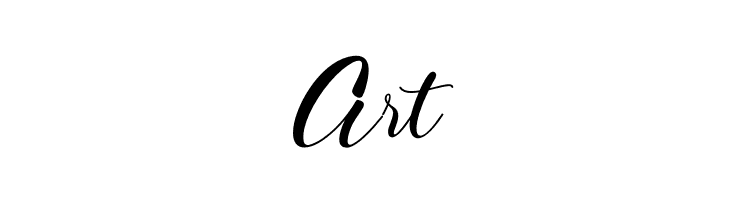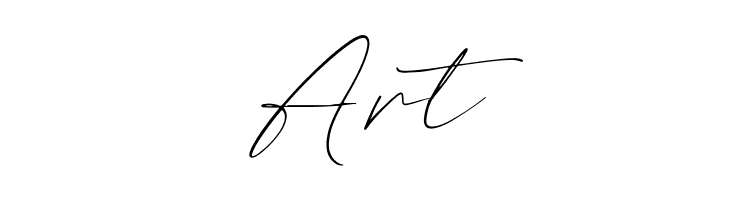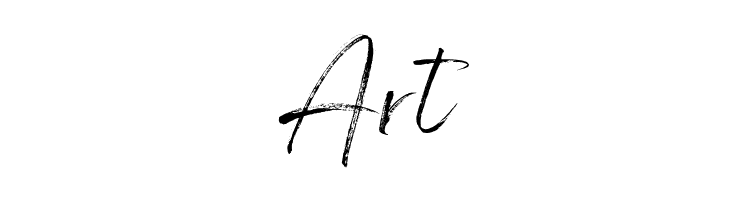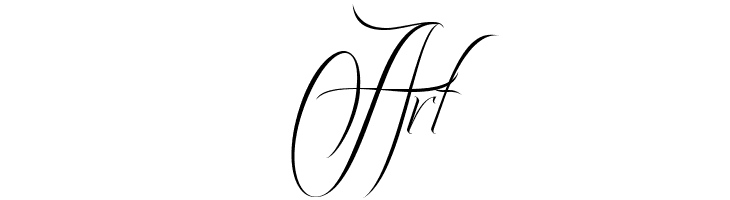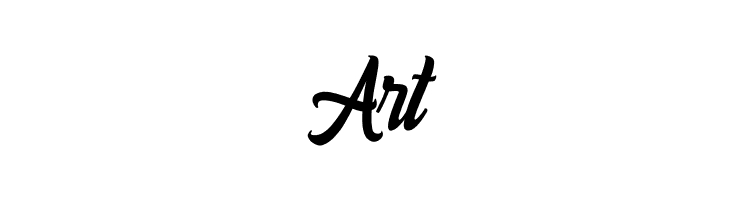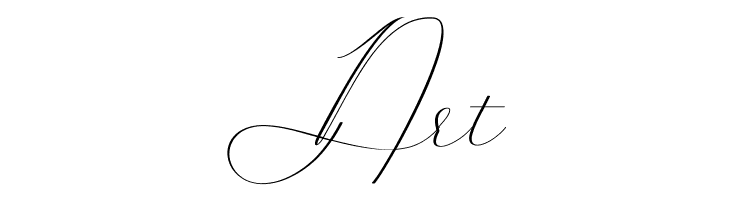
A playful, bold handwritten font with rounded, irregular letterforms.
A flowing, cursive font with elegant, connected strokes.
An elegant script font with flowing, interconnected letters and high-contrast strokes.
A flowing, cursive font with elegant, thin strokes and dynamic flair.
A flowing, cursive script font with elegant, connected strokes.
A lively, expressive handwritten font with dynamic strokes.
A bold, expressive handwritten font with dynamic strokes and a lively appearance.
An elegant, high-contrast script font with flowing, cursive characters.
A modern cursive font with elegant, flowing characters.
An elegant script font with flowing, interconnected letters and a refined appearance.